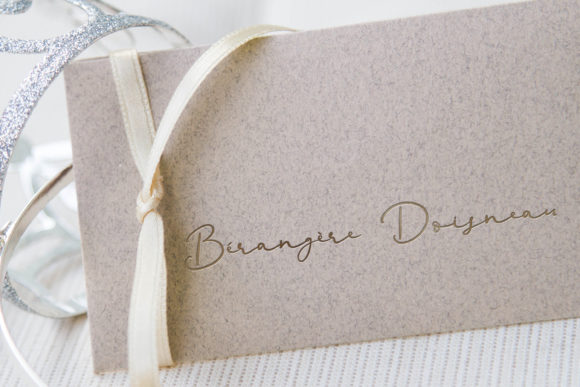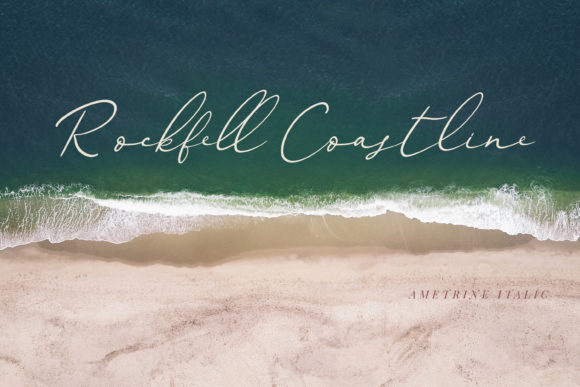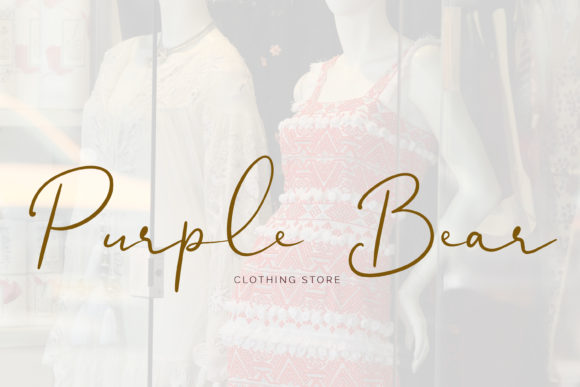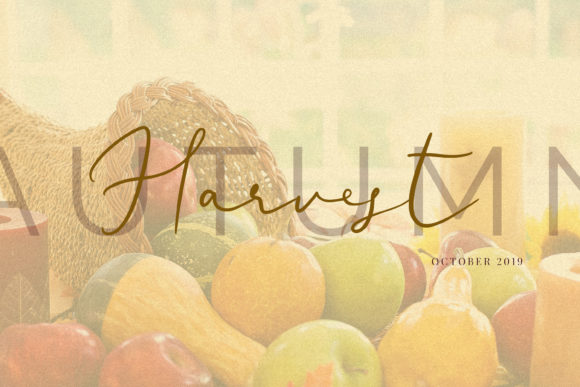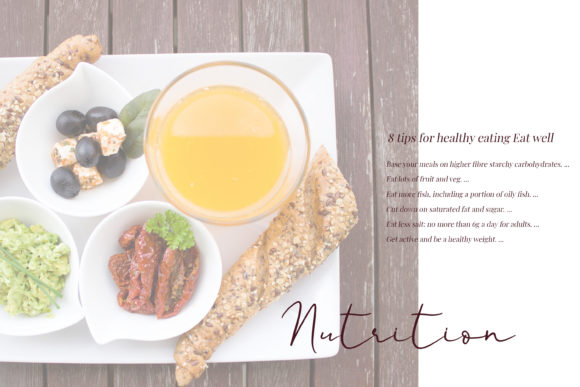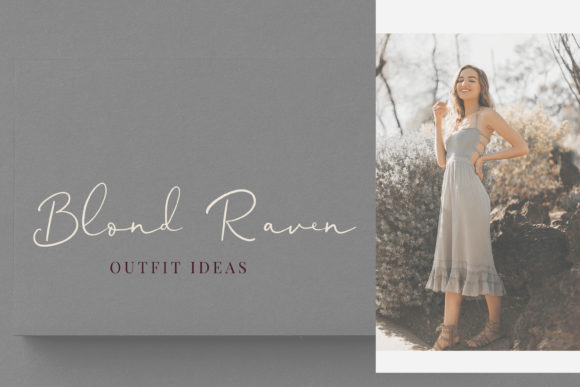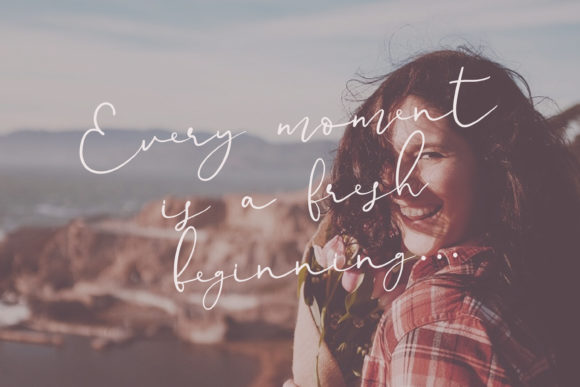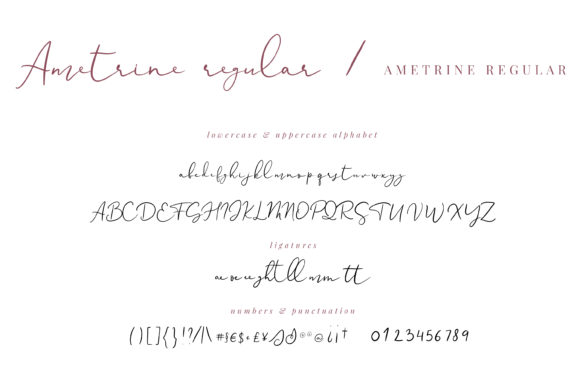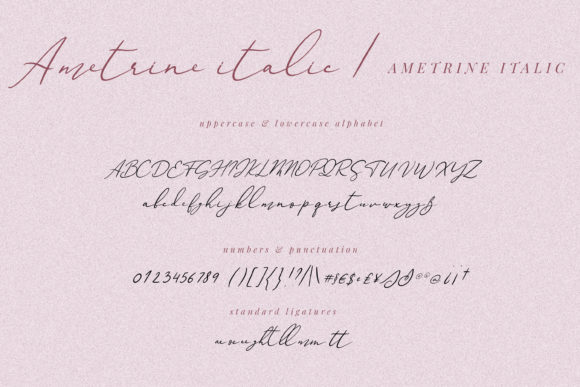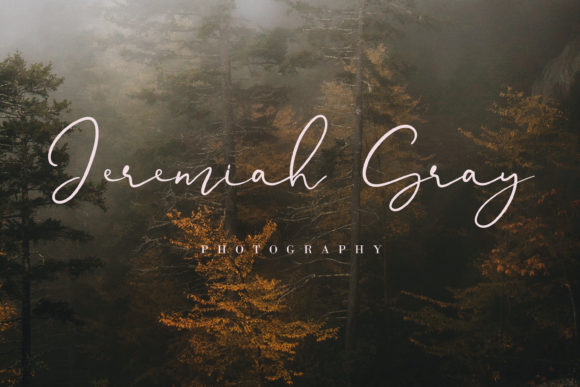
Ametrine Font
About Ametrine Font
Ametrine is a beautiful super-casual style font with an authentic handcrafted feel. It is perfectly suited for a wide variety of projects!